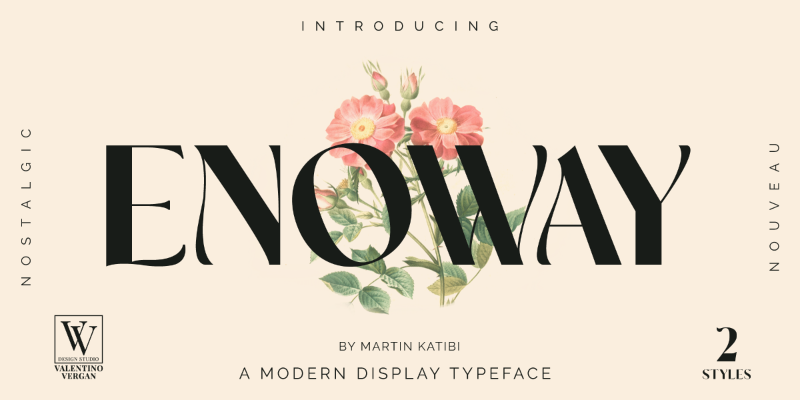
Font name: | Enoway |
Author: | Valentino Vergan |
Note by Valentino Vergan | |
Enoway is a modern elegant typeface, which leans towards the Neue Nouveau style. The Enoway typeface was inspired by the early the Art Nouveau typographic designs, which was characterized by decorative designs and embellished stroke endings. The Enoway typeface has a high-contrast and a thin hairline, this gives the typeface a modern but nostalgic look. The Enoway typeface comes in two styles, Regular and Oblique. The Enoway typeface can be paired with a minimal sans serif or light script font, this combination will give your next project a modern and unique look. The Enoway typeface is very versatile and can cover a wide range of project such as: fashion branding, mastheads, magazines, feminine logos, facebook banners, wedding invitations, Instagram posts, websites, blog posts, pull quotes, editorials, product packaging, trendy social media posts, advertisements and much more. This font is free for PERSONAL USE. If you need more information you can contact me at: valentinovergan@gmail.com _____ You can send a donation of any amount to: https://www.paypal.com/donate/?hosted_button_id=HXHTUGMPMNA2W _____ FOR PERSONAL AND COMMERCIAL USE, please download here: https://crmrkt.com/6o31p6 More... |